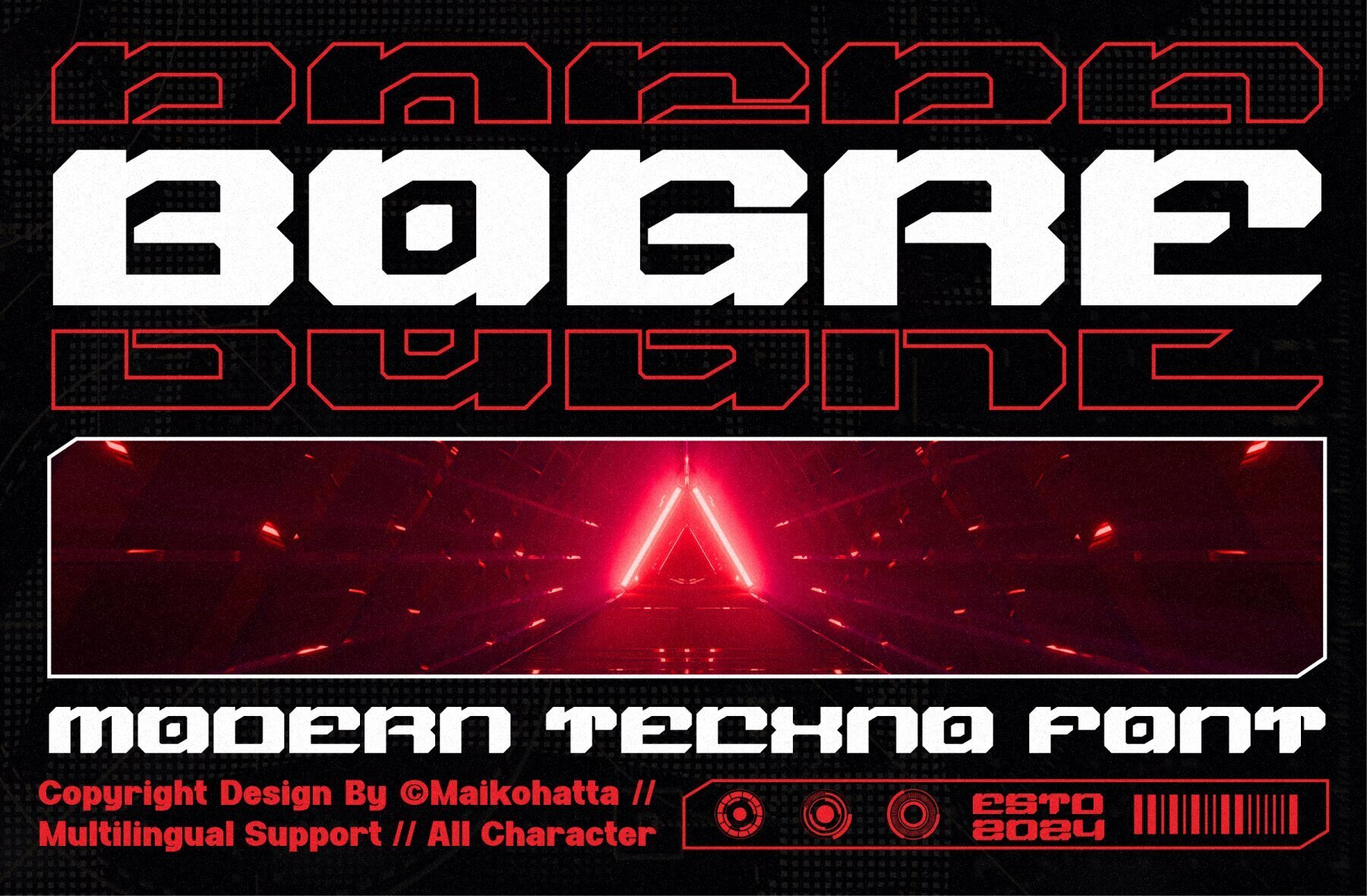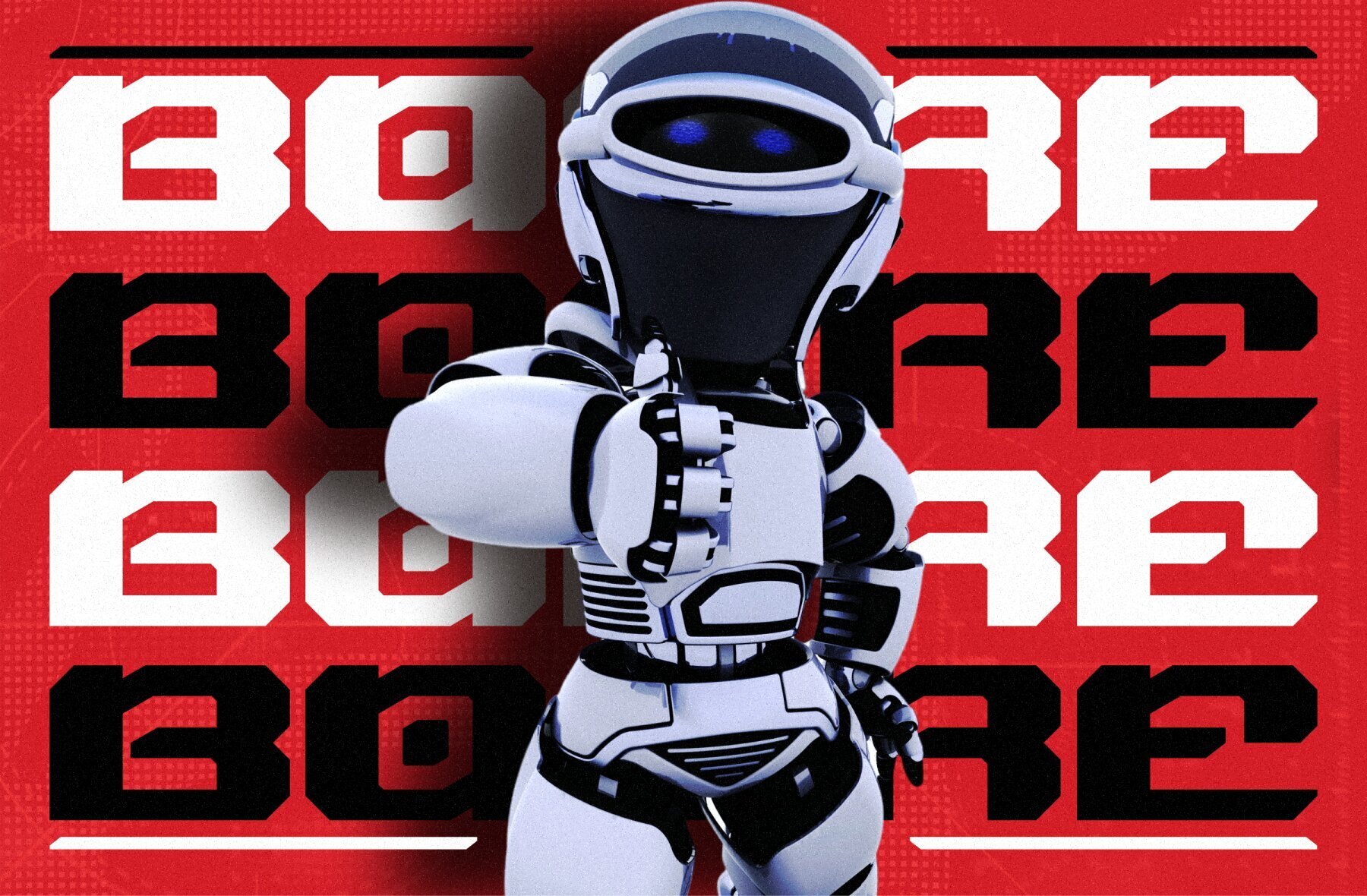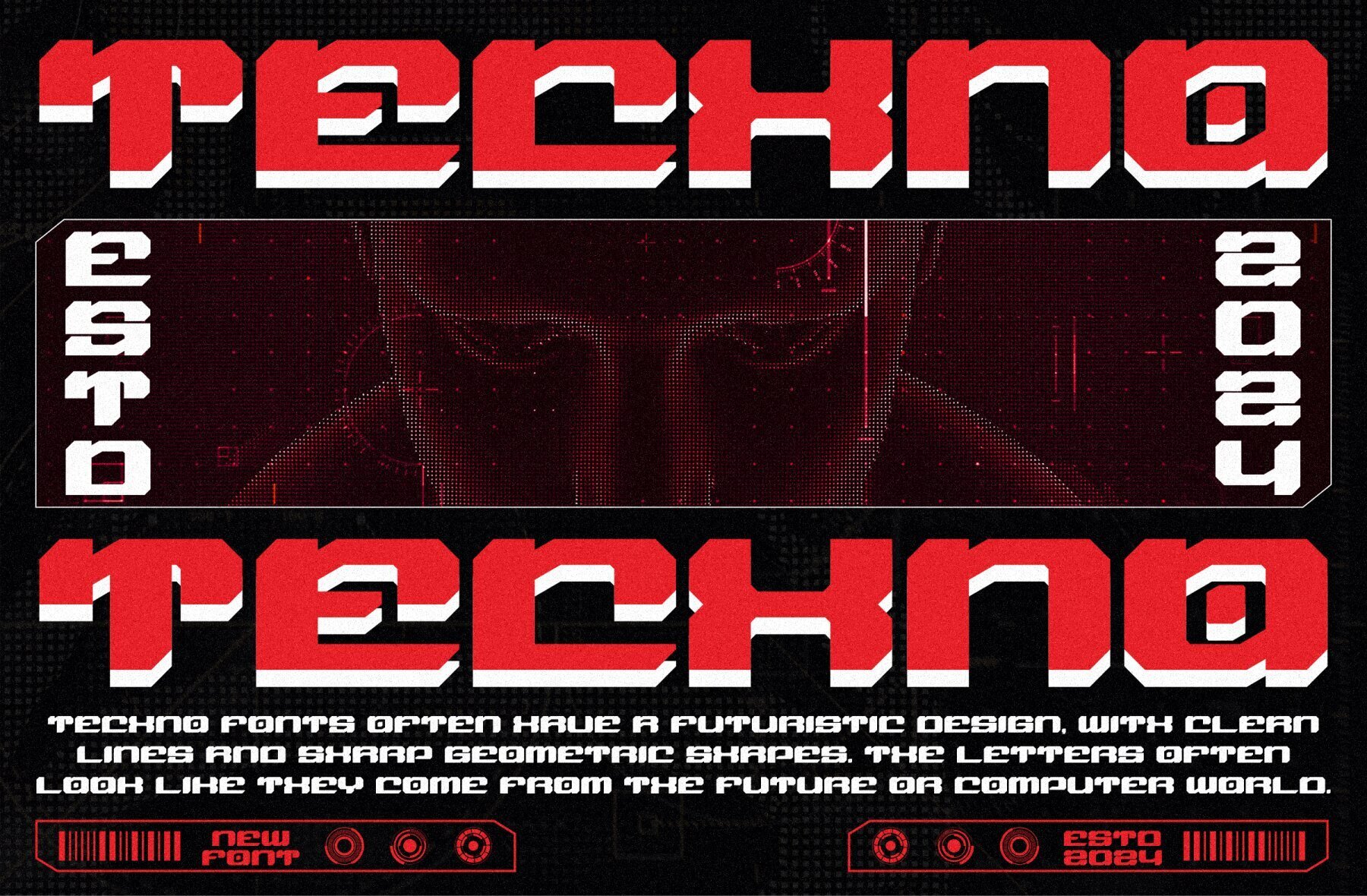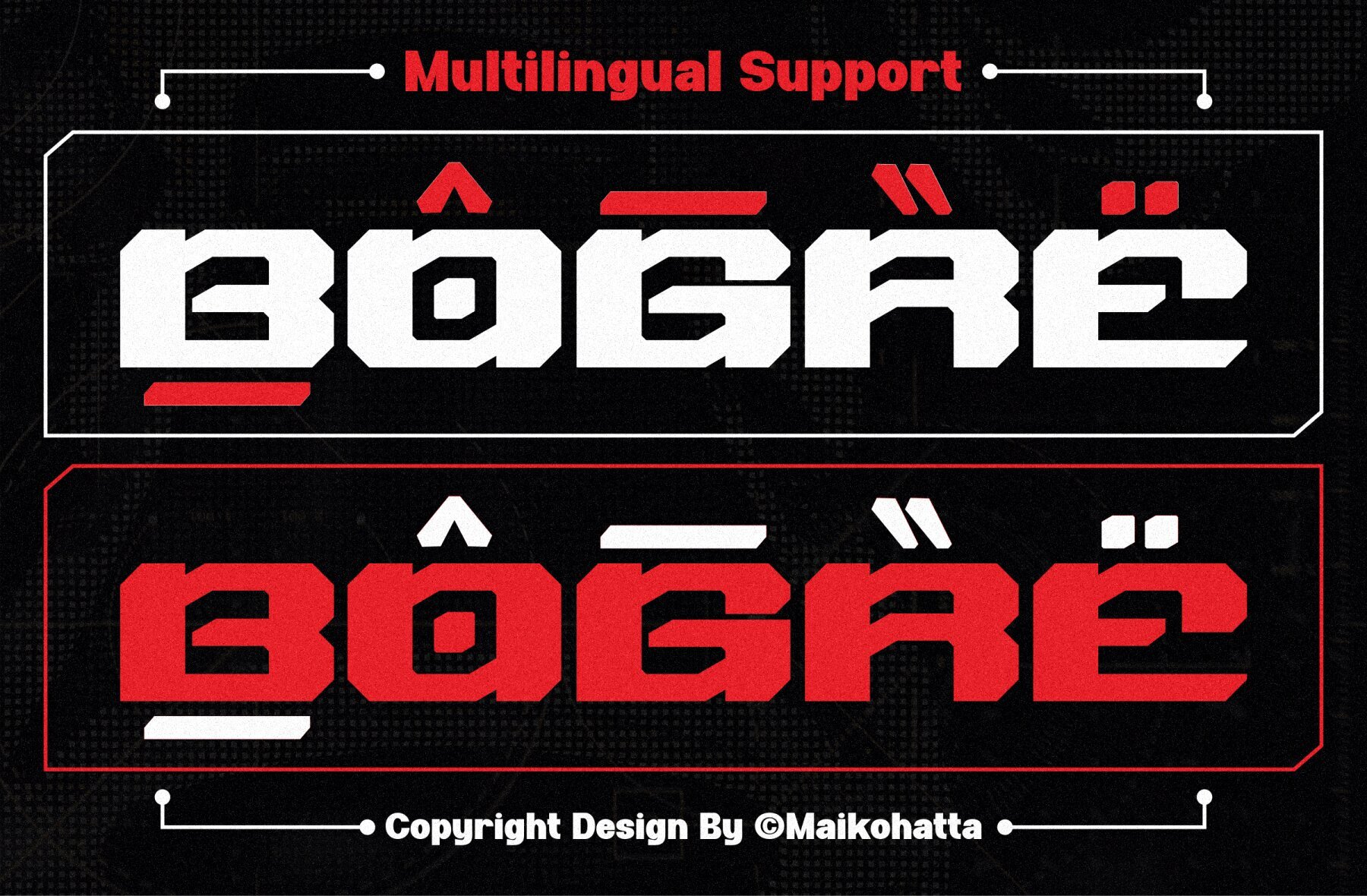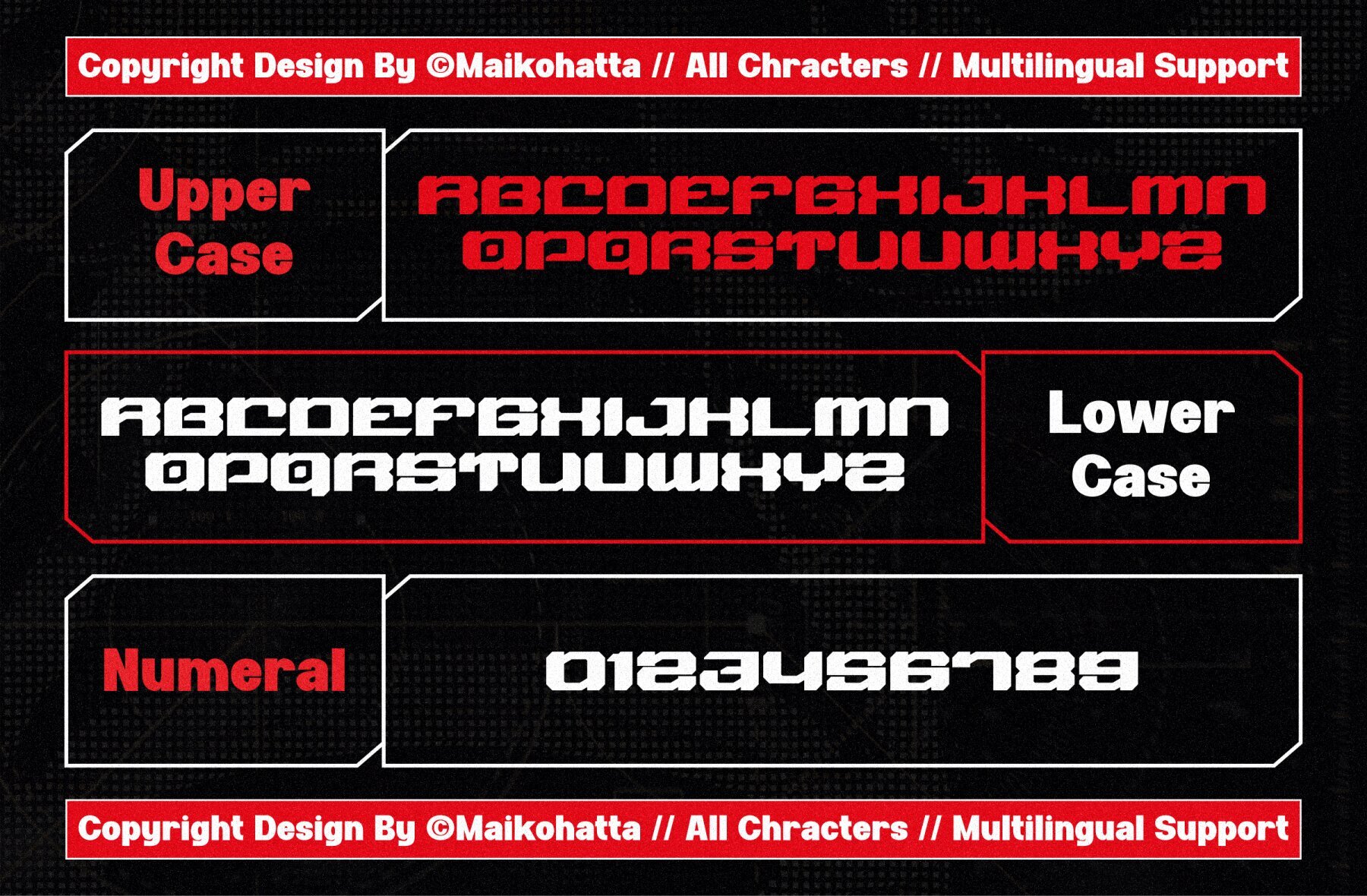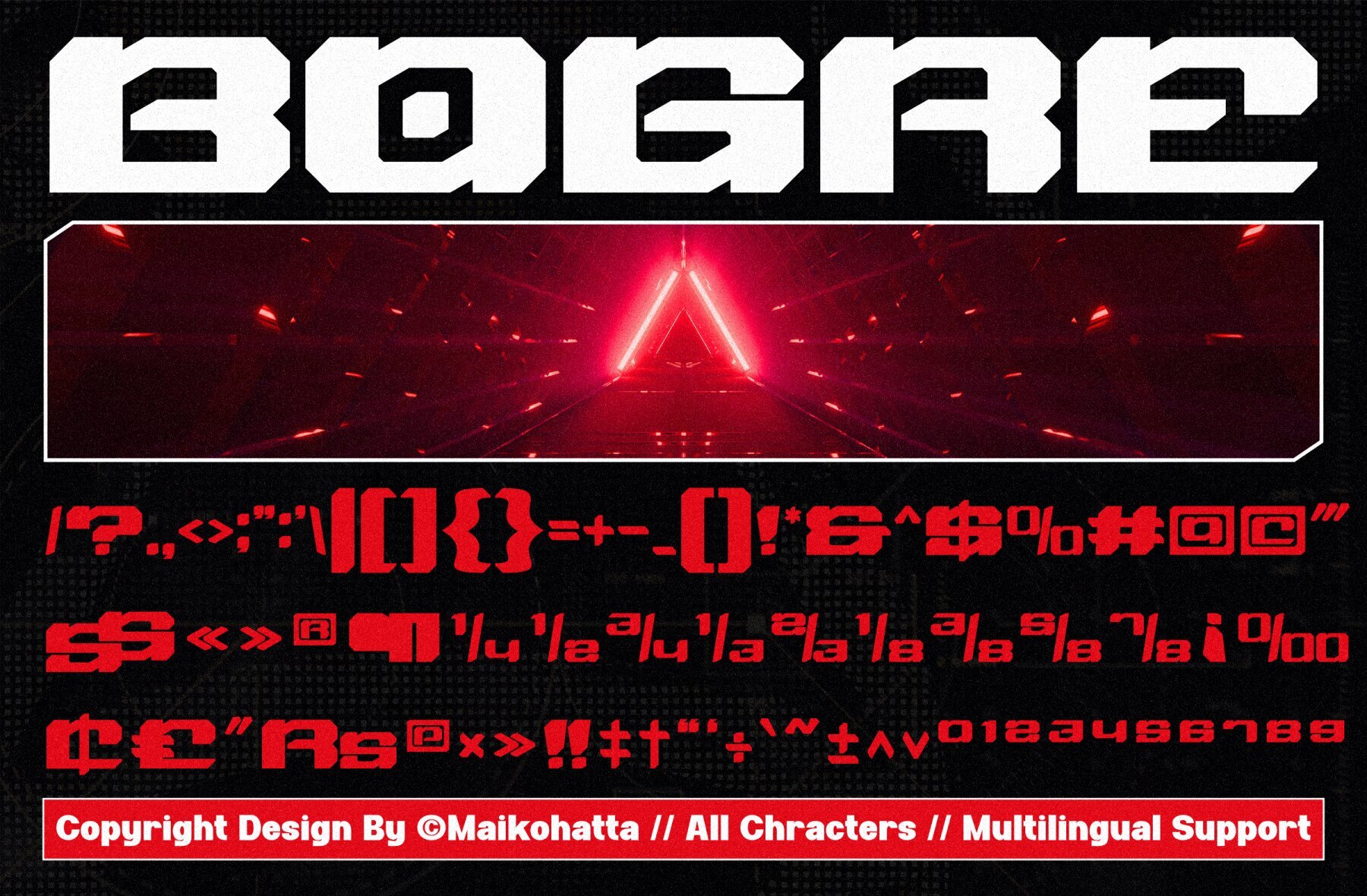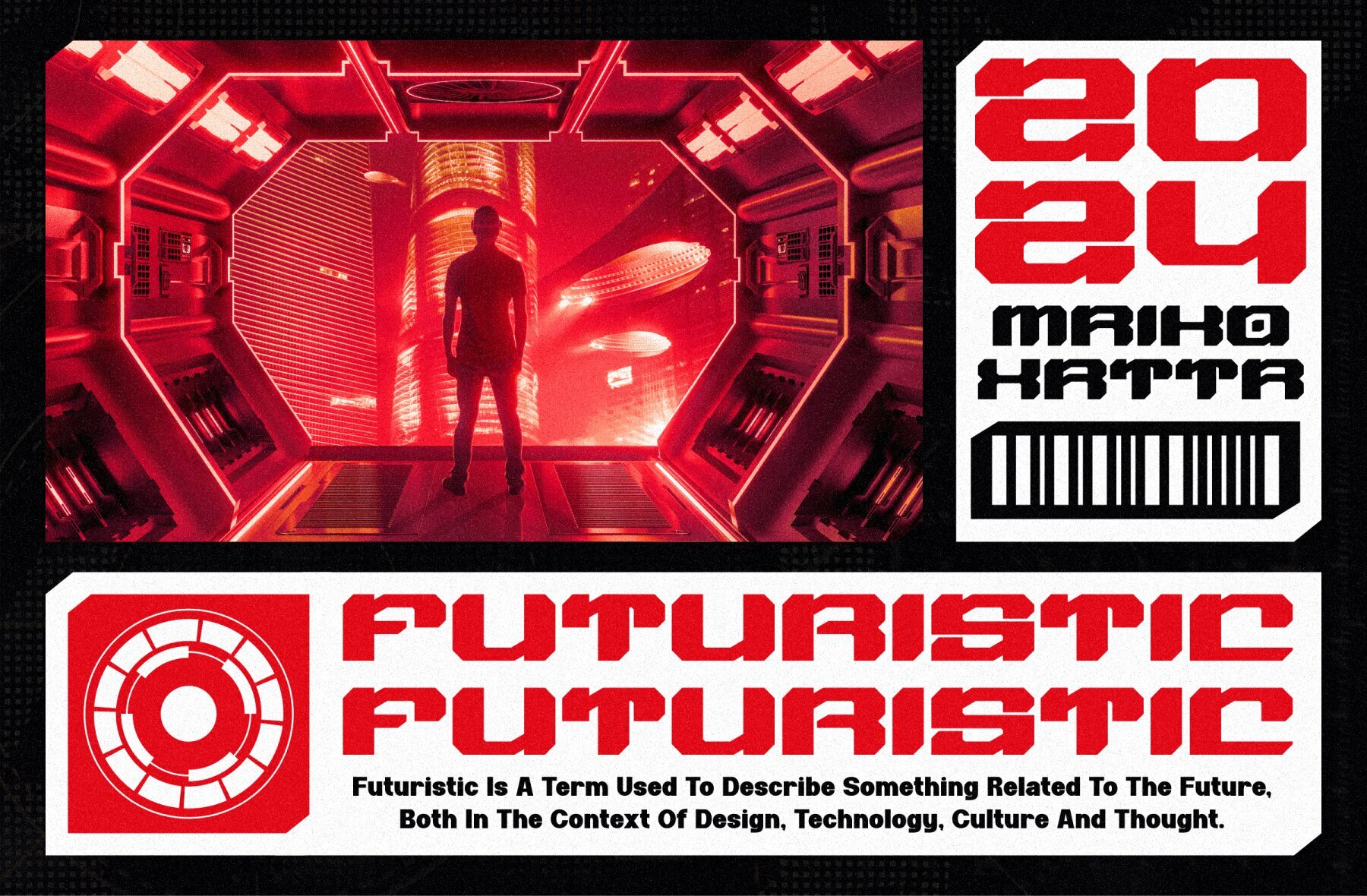
Bogre Font
Bogre Regular
Modern and futuristic, Bogre by Gilang Ternadho boasts sharp lines and geometric shapes inspired by advanced technology. Ideal for projects in technology, robotics, science, and the modern lifestyle, it brings a sense of innovation and energy to your designs. Perfect for logos, websites, posters, and other creative projects needing a futuristic touch. Features include uppercase, lowercase, and multilingual support.